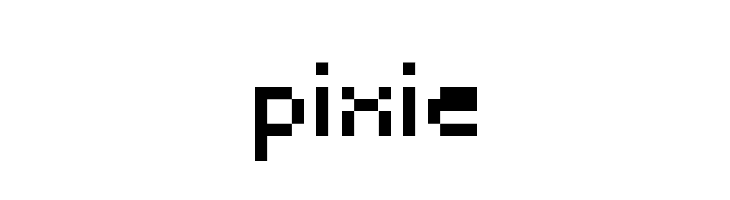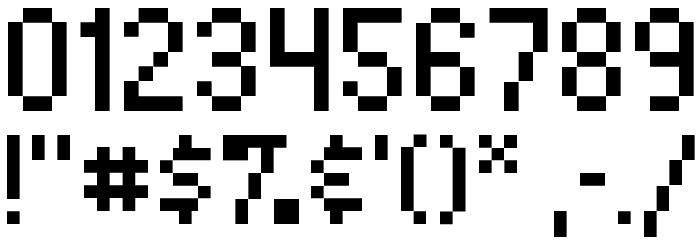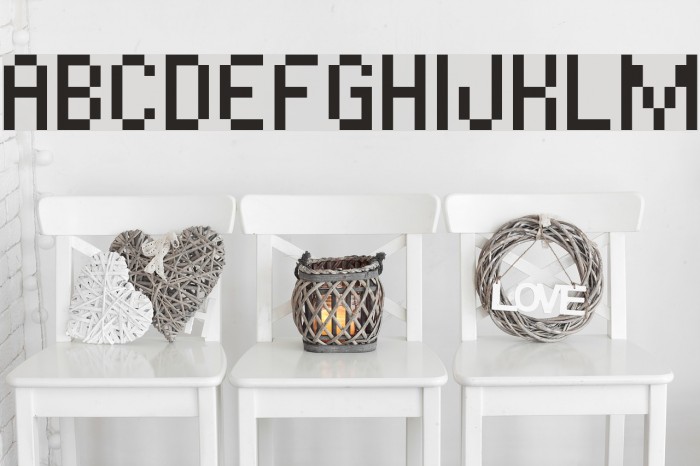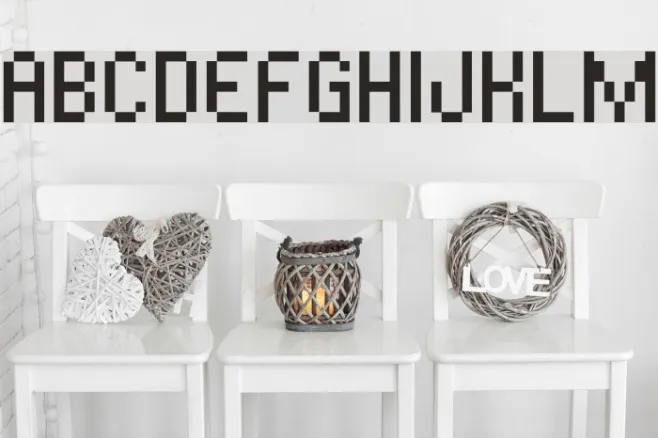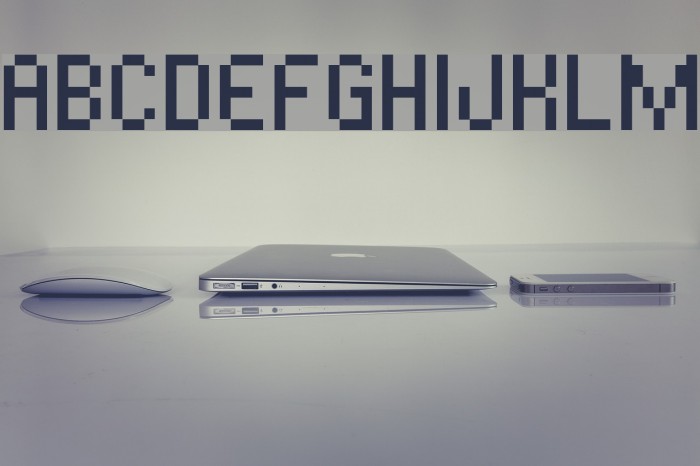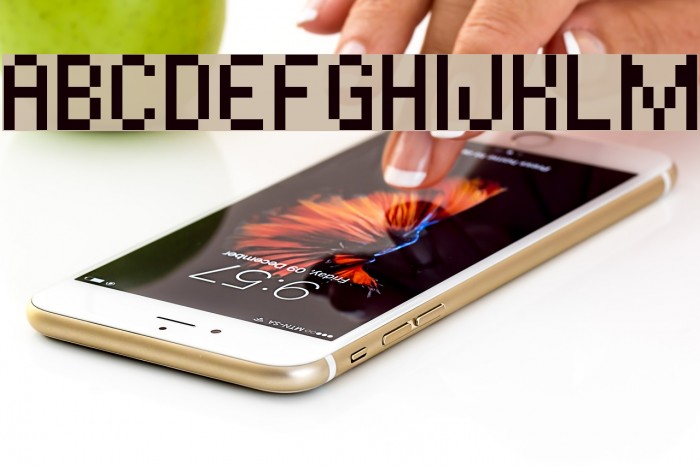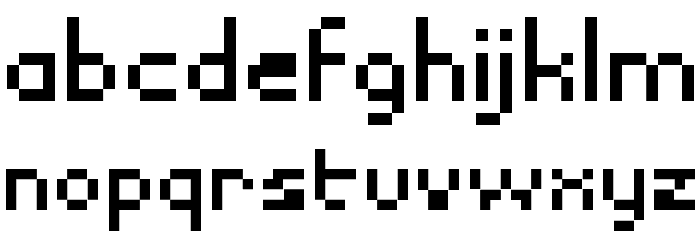
pixie Font
This font features a pixelated, blocky design reminiscent of early digital displays and retro video games. Each character is constructed with a grid-like precision, giving it a distinctly digital and geometric appearance. The uppercase and lowercase letters maintain a consistent height, contributing to a uniform and cohesive look. The numbers and special characters follow the same pixelated style, ensuring visual harmony across all elements. This font's simplicity and clarity make it highly legible, even at smaller sizes, while its nostalgic design evokes a sense of vintage computing and arcade games.
A pixelated, retro-style font with a blocky, digital appearance.
• Proposed Projects: Ideal for retro video game designs, digital art projects, tech-themed posters, and any creative work that seeks a nostalgic or digital aesthetic.
• Overall Style: Vintage
• Use Case: Headlines, Logos, Digital Art